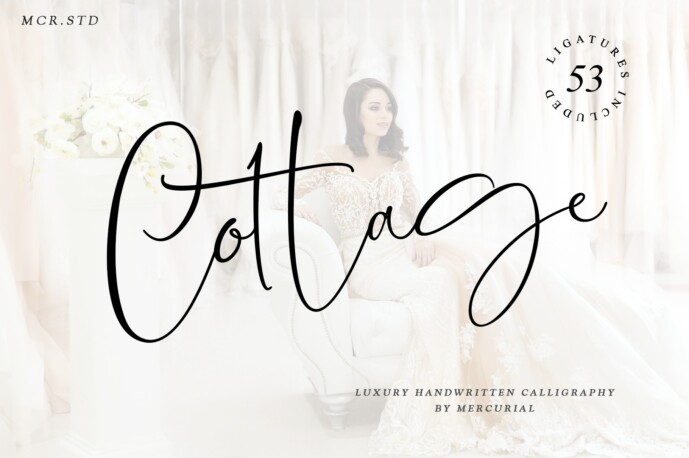
The Cottage is a simple and classy font. It has an elegant and classy style which makes it perfect for luxurious designs.
It’s the right choice for watermarks on photography, signatures or signature logo designs, quotes, album covers, business cards, and many other design projects. From business cards to photo watermarks, Cottages is here to increase your work to the highest level.